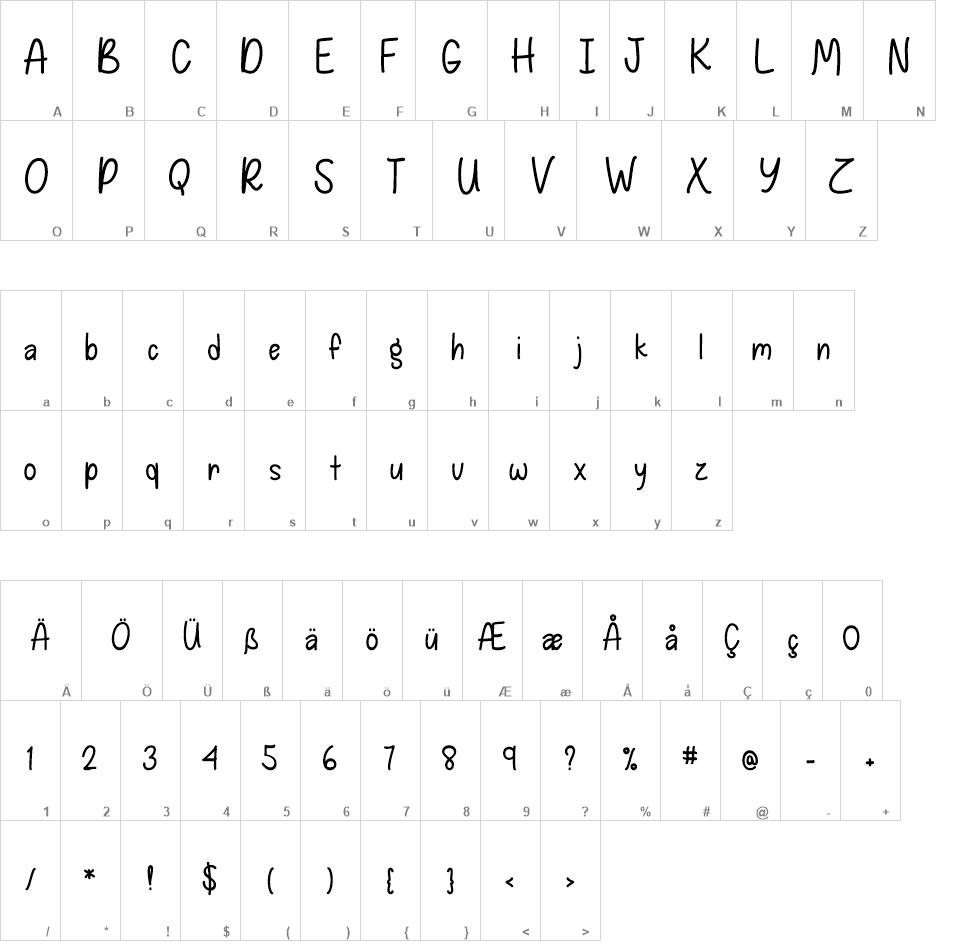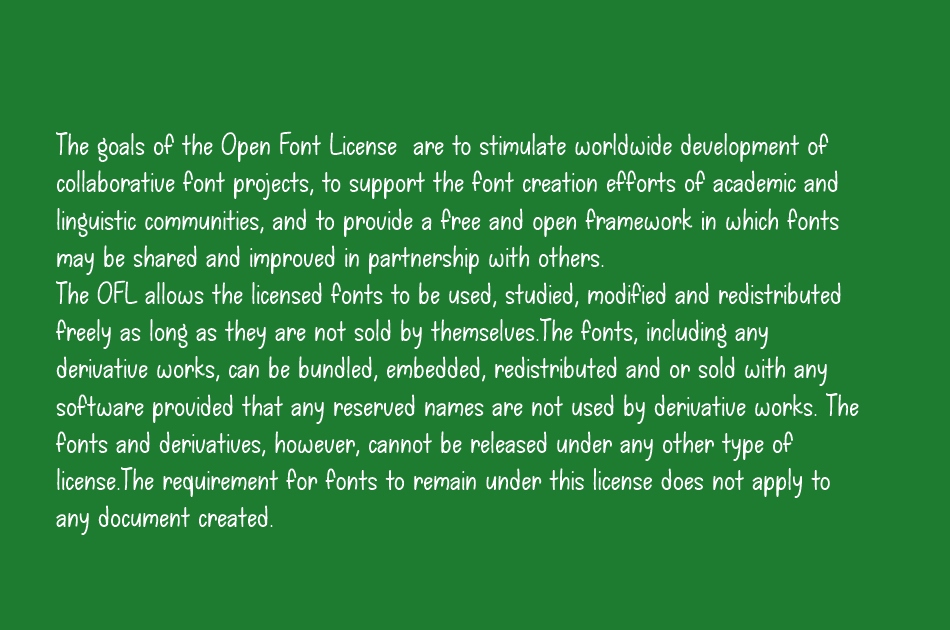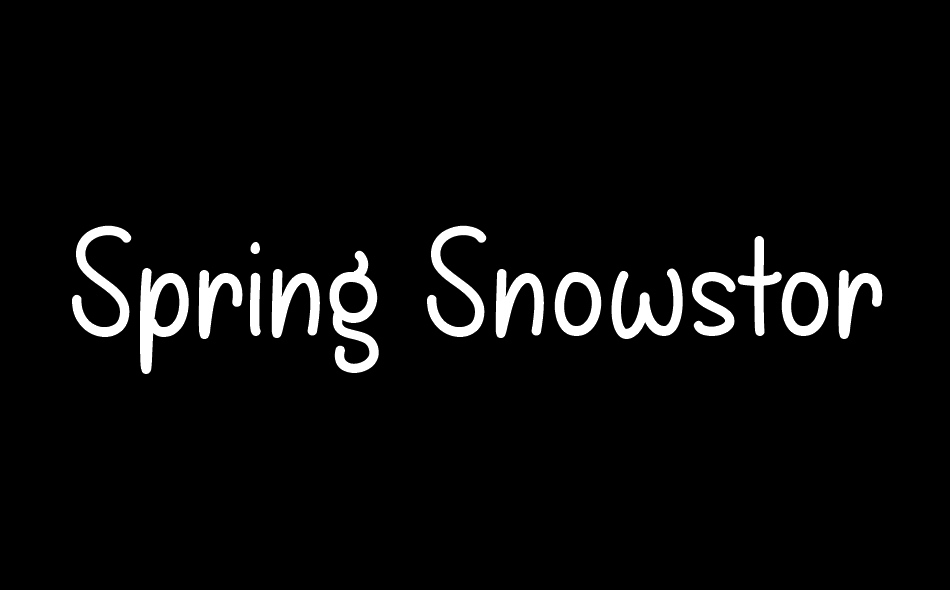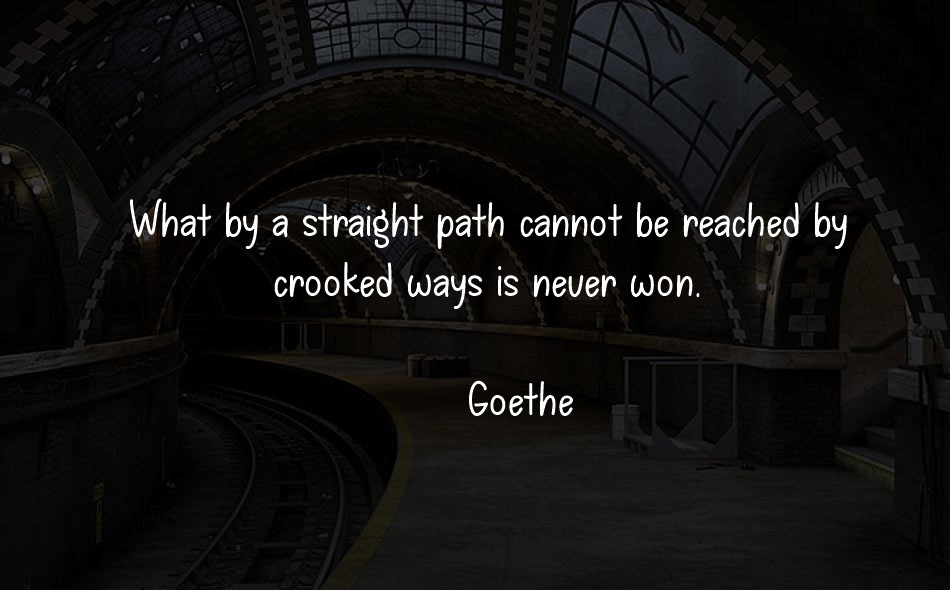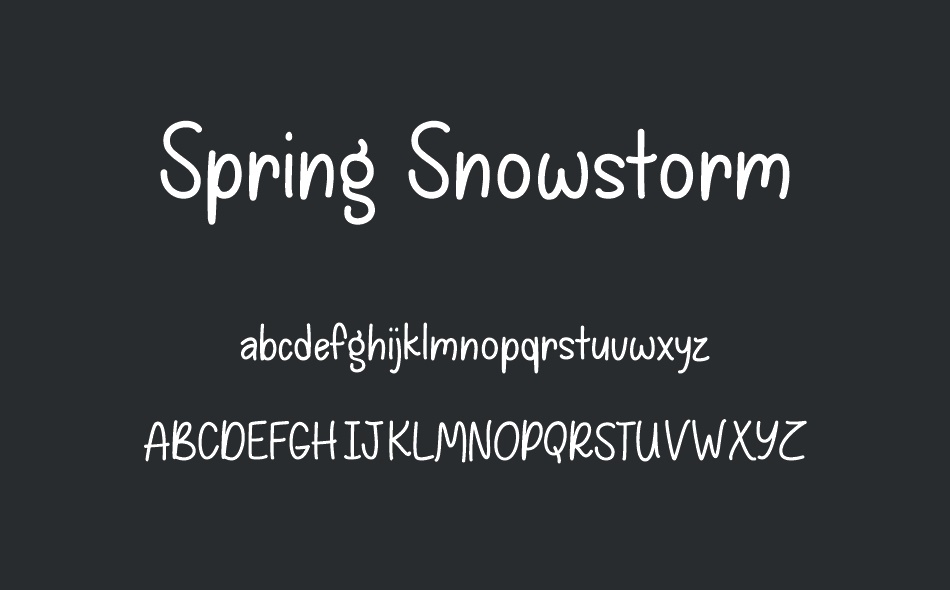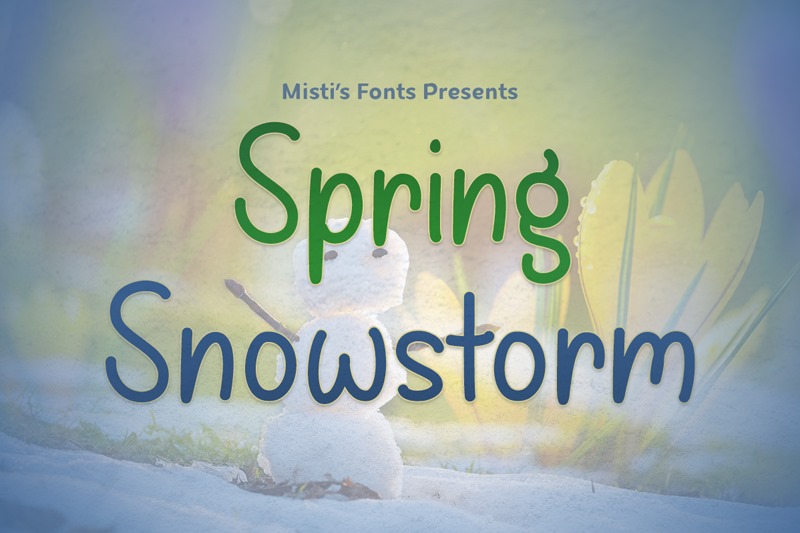
Spring Snowstorm font
Spring Snowstorm is a cute and quirky handwritten typeface that will surely bring a smile to your face! It is perfect for adding a whimsical charm to your designs. It would look great for shop logos, sublimation projects, product labels, Easter greeting cards, and so much more!